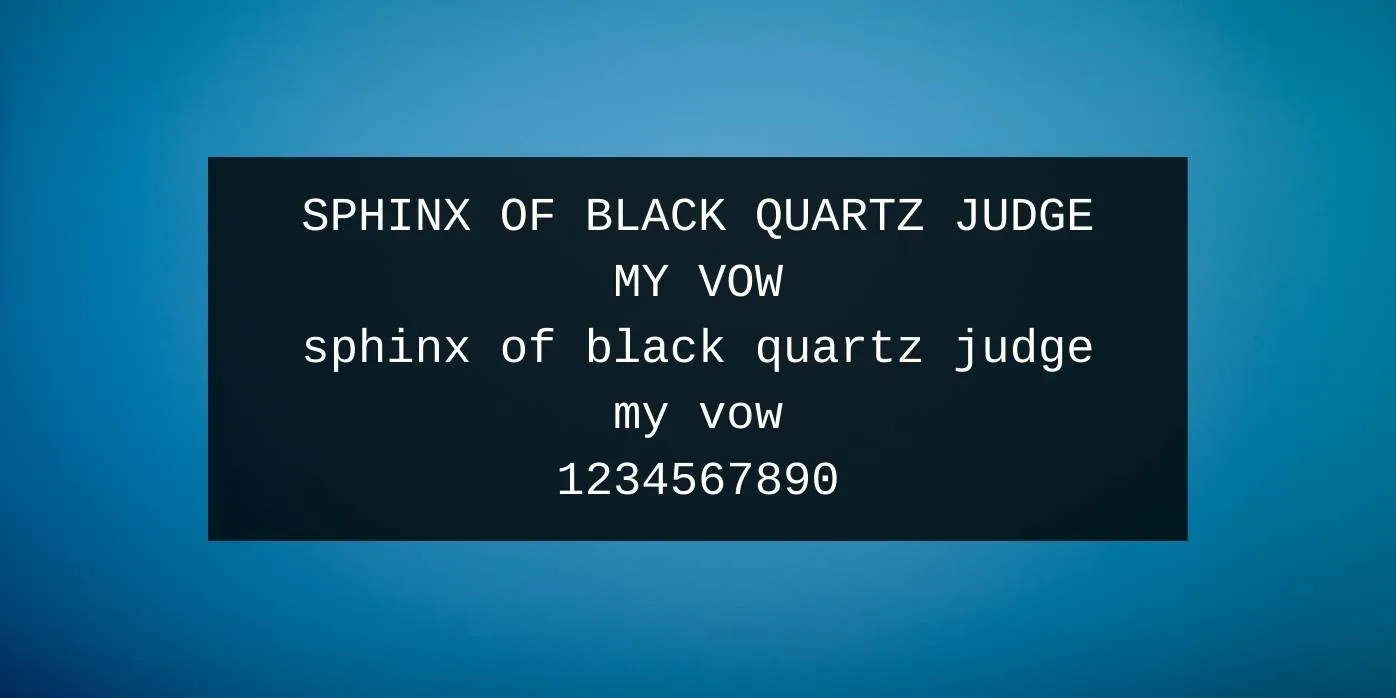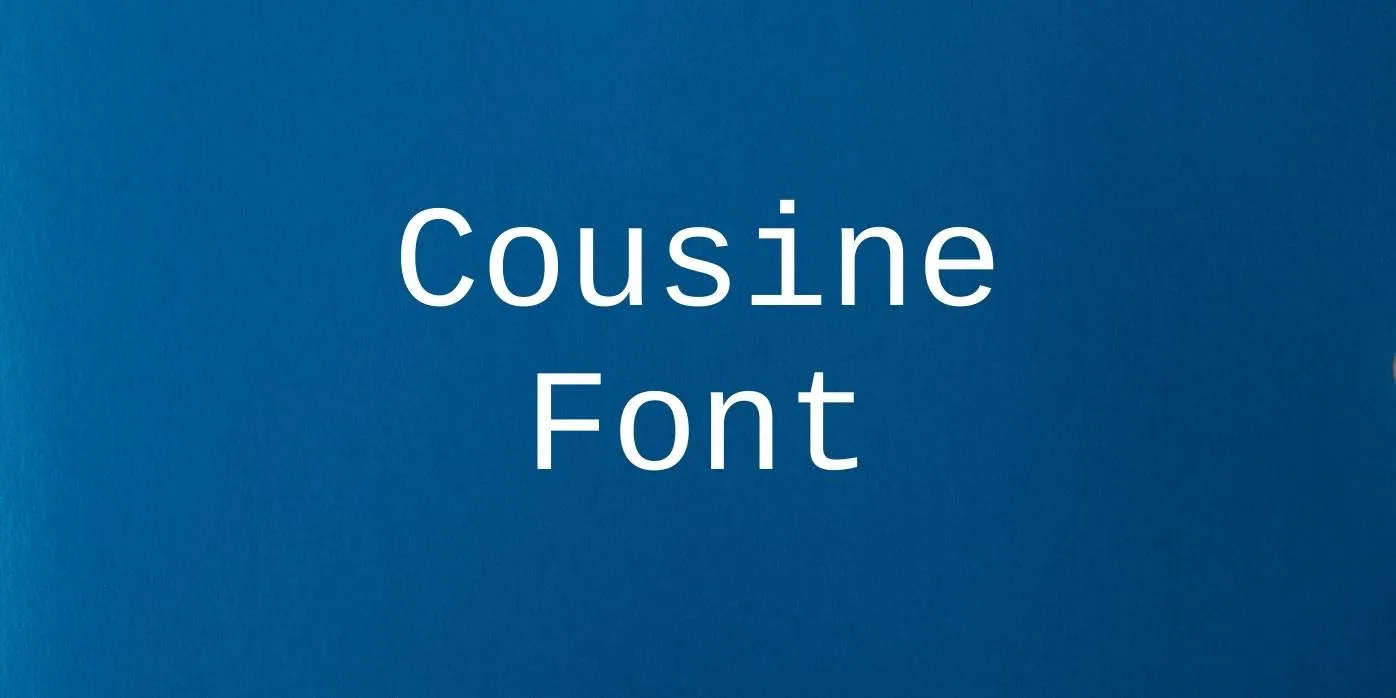
Cousine Font
Here, we present a modern typeface known as Cousine Font. This typeface belongs to the sans serif family. Steve Matteson is the designer of this family. Cousine was designed to be a highly readable sans serif typeface for on-screen use.
It is also a great choice for printed materials. Cousine Font is available in four weights: regular, bold, italic, and bold italic. Each weight has its own set of character shapes. The regular weight is the simplest and most versatile.
The other weights are best used for emphasis or when a more unique look is desired. Its copy and paste function is beneficial for all textual designs. This typeface is very famous for its use in code editors. Many popular code editors like Sublime Text and Atom use Cousine Font as their default typeface.